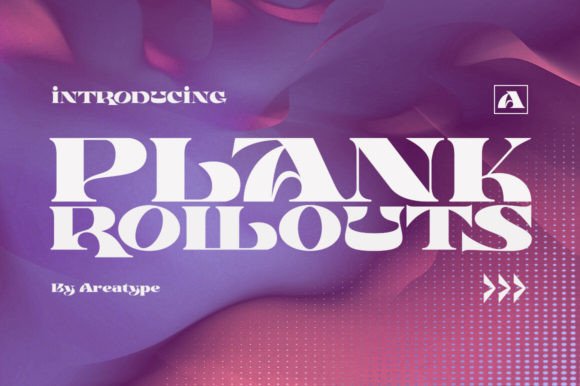
Introducing Plank Rollouts Font: Elevate Your Designs with a Stylish, Bold Serif Font
In the world of typography, fonts play a crucial role in conveying messages, expressing emotions, and creating visual identities. For designers, finding the perfect font can be a daunting task, especially when looking for something that stands out from the crowd. This is where Plank Rollouts Font comes in – a stylish, bold serif font with a cool, retro vibe that’s sure to elevate any creation.
What is Plank Rollouts Font?
Plank Rollouts Font is a carefully crafted, bold serif font that exudes a sense of nostalgia and sophistication. Its unique design elements and retro aesthetic make it an excellent addition to any font library. With its versatility and wide range of applications, Plank Rollouts Font is perfect for designers looking to add a touch of elegance and personality to their work.
Key Features of Plank Rollouts Font
- Bold and Stylish: Plank Rollouts Font boasts a bold and stylish design that’s sure to grab attention.
- Retro Vibe: The font’s retro aesthetic adds a touch of nostalgia and sophistication to any design.
- Serif Font: The classic serif design ensures excellent readability and versatility.
- Wide Range of Applications: From branding and advertising to packaging and digital media, Plank Rollouts Font can be used in various contexts.
The Many Uses of Plank Rollouts Font
One of the most significant advantages of Plank Rollouts Font is its versatility. The font can be used in a wide range of applications, including:
- Branding and Logo Design: Create a lasting impression with a bold and stylish logo that showcases your brand’s personality.
- Advertising and Marketing: Use Plank Rollouts Font to create eye-catching ads and promotional materials that grab attention.
- Packaging Design: Add a touch of elegance and sophistication to your product packaging with this beautiful font.
- Digital Media: From social media graphics to website headers, Plank Rollouts Font is perfect for creating visually appealing digital content.
The Benefits of Using Plank Rollouts Font
So, why choose Plank Rollouts Font for your design projects? Here are some benefits of using this amazing font:
- Elevate Your Designs: Add a touch of sophistication and elegance to your designs with Plank Rollouts Font.
- Stand Out from the Crowd: The font’s unique design elements ensure that your designs stand out from the competition.
- Improve Readability: The classic serif design ensures excellent readability, making it perfect for body text and headings.
- Save Time: With Plank Rollouts Font, you can create stunning designs in no time, thanks to its versatility and ease of use.
Tips for Using Plank Rollouts Font
To get the most out of Plank Rollouts Font, here are some tips to keep in mind:
- Experiment with Font Sizes: Play around with different font sizes to create visual hierarchy and emphasis.
- Pair with Other Fonts: Combine Plank Rollouts Font with other fonts to create a unique and visually appealing typography.
- Use in Combination with Images: Pair the font with high-quality images to create stunning visual content.
- Keep it Simple: Don’t overcomplicate your design – keep it simple and elegant to let the font shine.
In conclusion, Plank Rollouts Font is an incredible asset to any font library. Its stylish, bold serif design and retro vibe make it perfect for designers looking to elevate their creations. With its versatility, wide range of applications, and ease of use, Plank Rollouts Font is sure to become a go-to font for designers around the world.